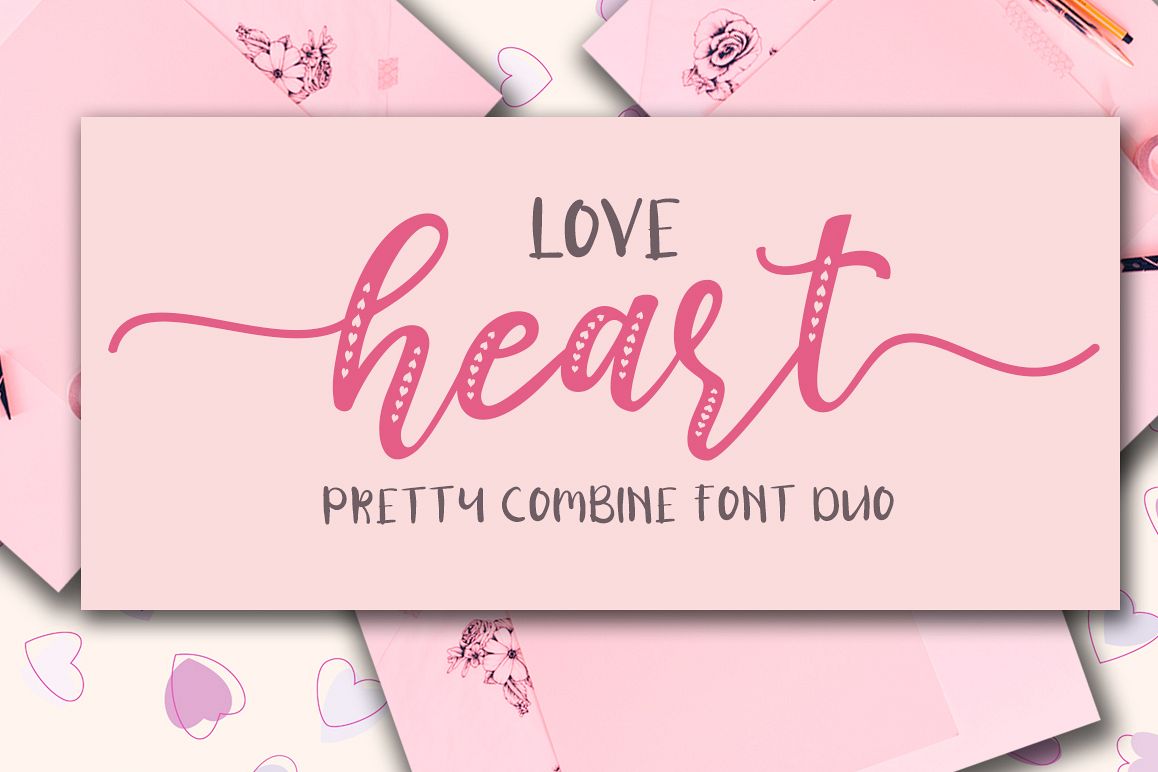
Love Heart / Beauty Combo
Love Heart San
Love Heart
Love Heart Fill
"Love Heart" is a hand lettered font style that is perfect  for greeting cards, branding, stationery design, social media,
packaging, magazine layouts, prints, logos and more!
This unique font features complete lowercase alphabets and uppercase alphabets along with a few other ligatures and stylistic  alternates to create a truly handwritten look and feel.
"Love Heart" has a variety of unique, coded features to create compelling, handmade outcomes.